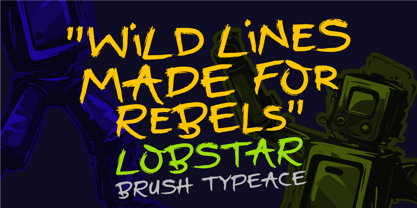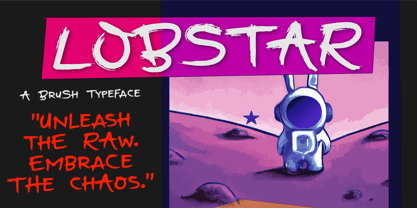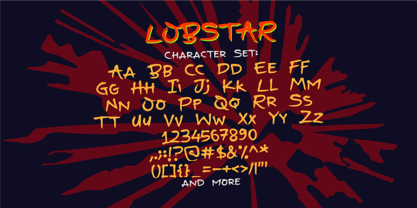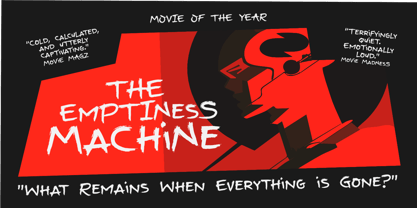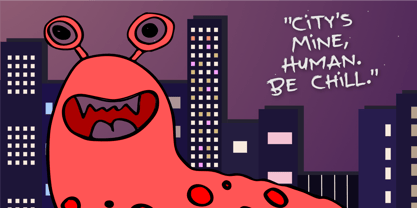
Lobstar
by Epiclinez
The Lobstar Font Family was designed by Aldy Sidik and published by Epiclinez. Lobstar contains 1 styles. More about this family
Lobstar is a raw, untamed brush font that brings bold energy and rebellious spirit to your designs. Hand-painted with expressive strokes and gritty texture, this typeface is made for those who want to make a statement—loud, fierce, and unforgettable.
Perfect for movie posters, album covers, streetwear branding, bold packaging, and urban-inspired design, Lobstar channels the chaotic charm of handmade brush lettering. Its rough edges, uneven pressure, and authentic dry brush texture give your work a wild, raw aesthetic that breaks the grid and grabs attention.
Whether you're crafting a thriller title, edgy apparel logo, or grunge-style social media post, Lobstar delivers a dramatic, high-impact look.
Designers: Aldy Sidik
Foundry: Epiclinez